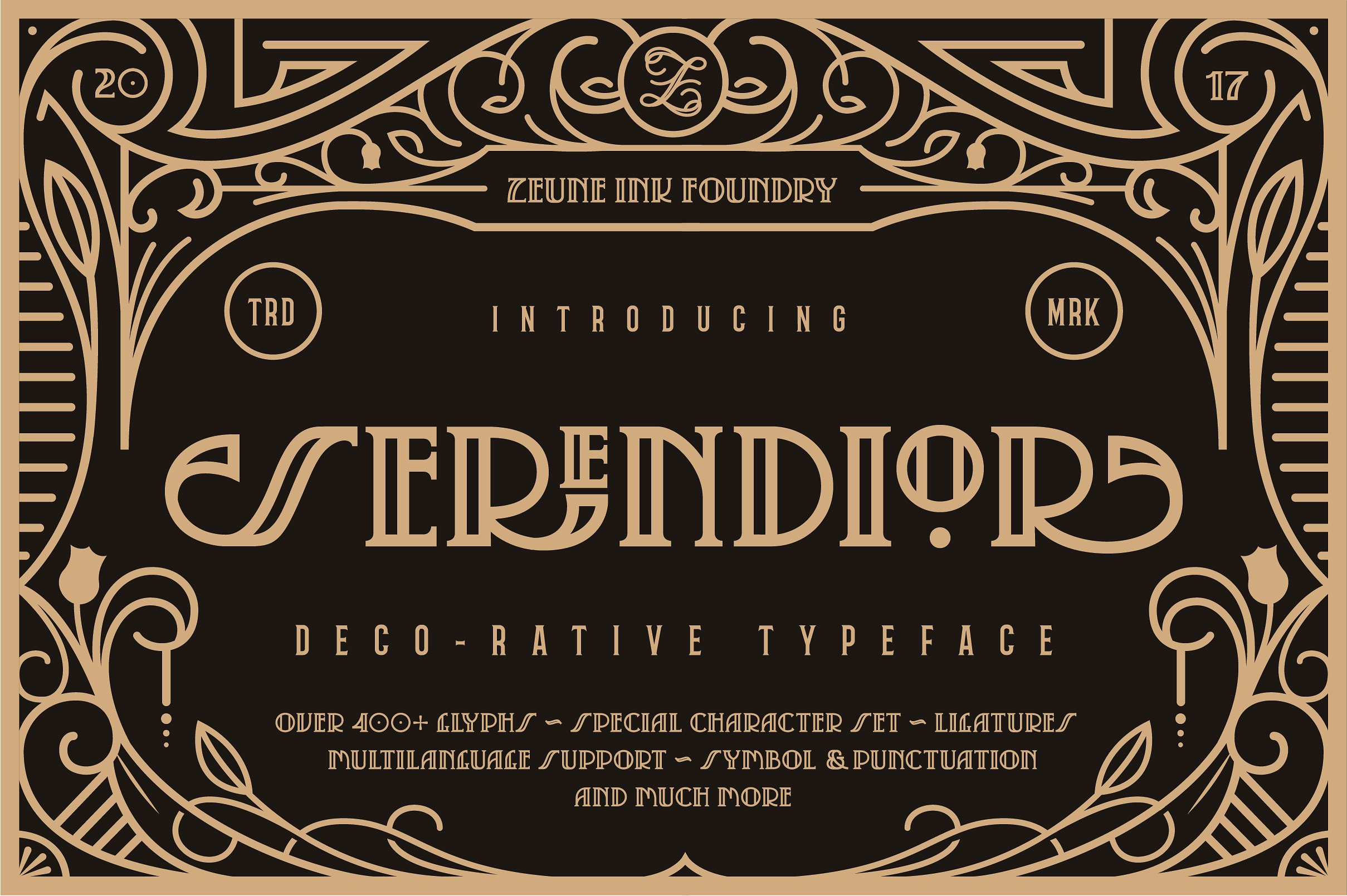
Cool Deco Fonts References
Cool Deco Fonts References. Designed around a fast hand sweep style, the script is a. Sauvage is an elegant art deco font that combines vintage and modernity in one typeface.
Web The 30 Best Art Deco Fonts For Graphic Design, Branding, And Logo Design Avenida.
Visit ps type to purchase additional licensing and services, including: Sauvage is an elegant art deco font that combines vintage and modernity in one typeface. The font is designed to be in keeping with the art deco style but with a.
Art Deco Monogram Font Is A Sans Serif Font Specially Designed For Creating Stunning Monograms In No Time.
Designed around a fast hand sweep style, the script is a. Art deco neue contains 1 styles and family. This means that choosing or creating art deco fonts requires focus on decorative.
Web modesto is a linear handwritten font in art deco style with art nouveau motives.the typeface includes regular and symbol versions. Angelic bonques sans, designed by craft supply co., features. The art deco movement started in the last century with origins from europe.
Web Best Art Deco Font.
Click to find the best 105 free fonts in the deco style. The style evokes a sense of elegance, jazz, or luxury and is. It has the irregular charm of a hand drawn font but the elegance of a classic art deco style font.
Web 20 Art Deco Fonts To Use For Your Next Project Akros.
Web art deco is characterized by the predominance of beauty over practicality. Caylee is a script font with an expansive typeface ready for any occasion. Web we have 1 free history, deco font to offer for direct downloading · 1001 fonts is your favorite site for free fonts since 2001